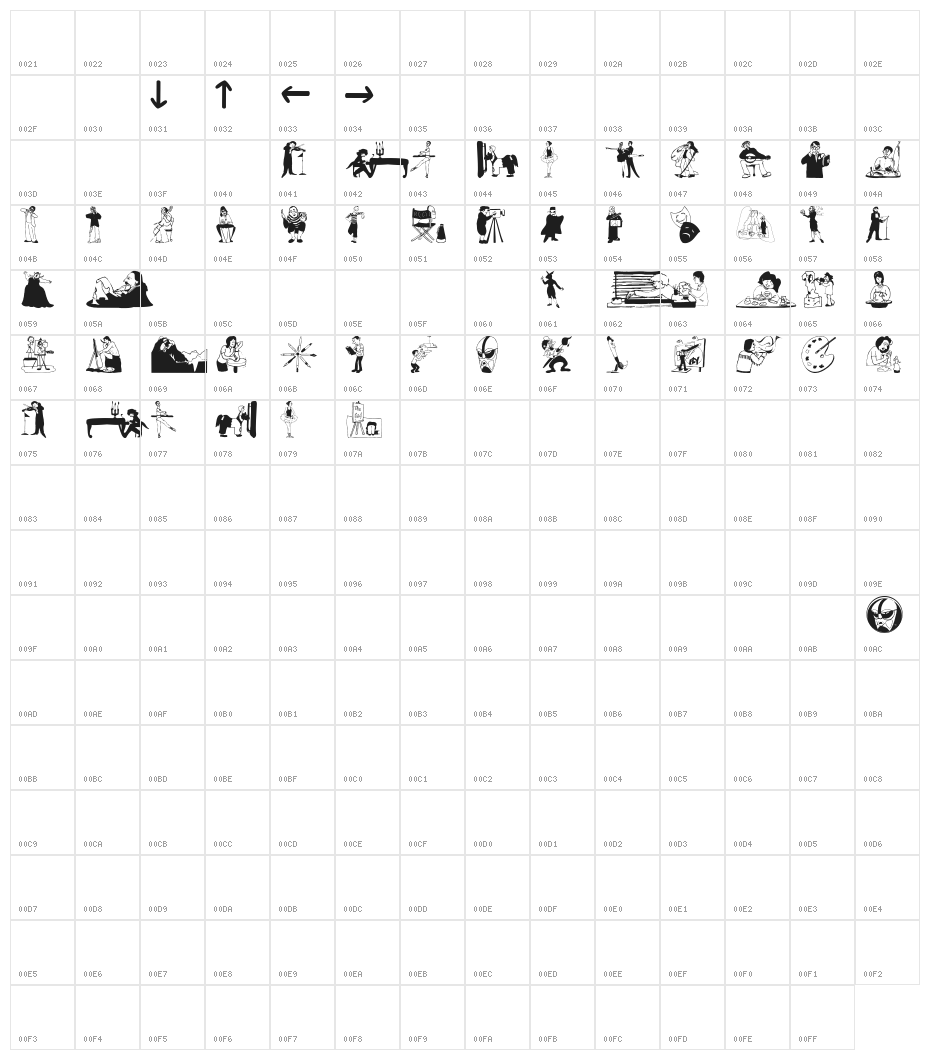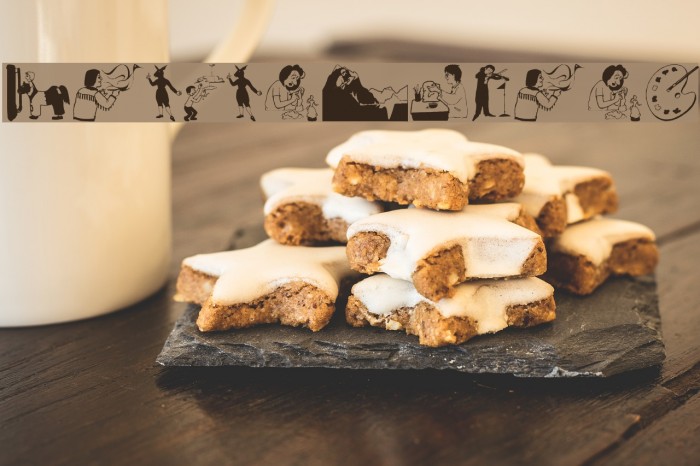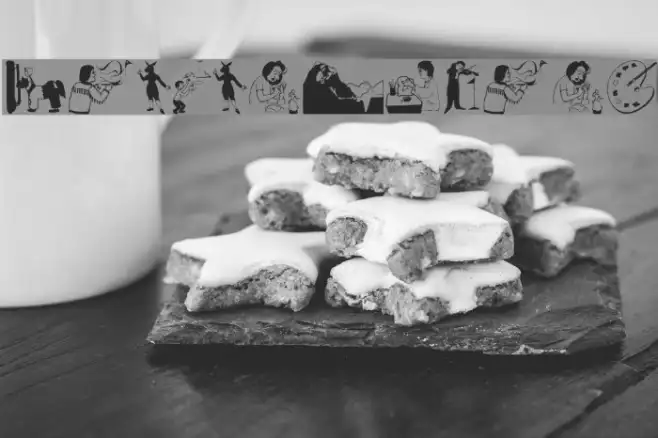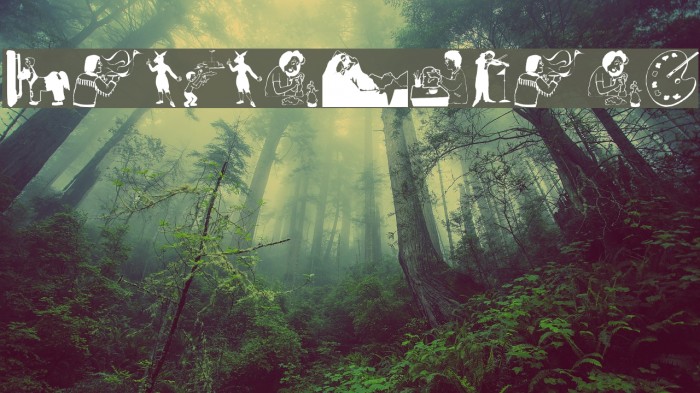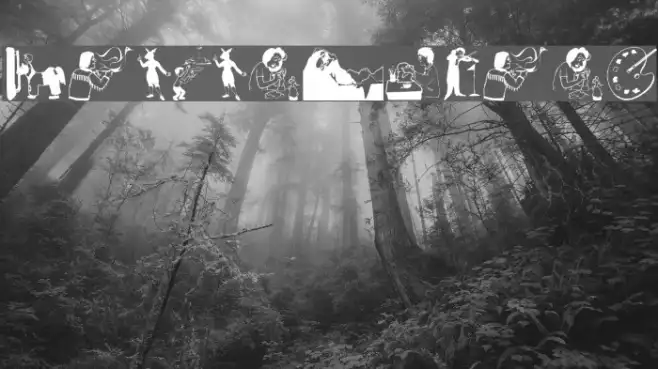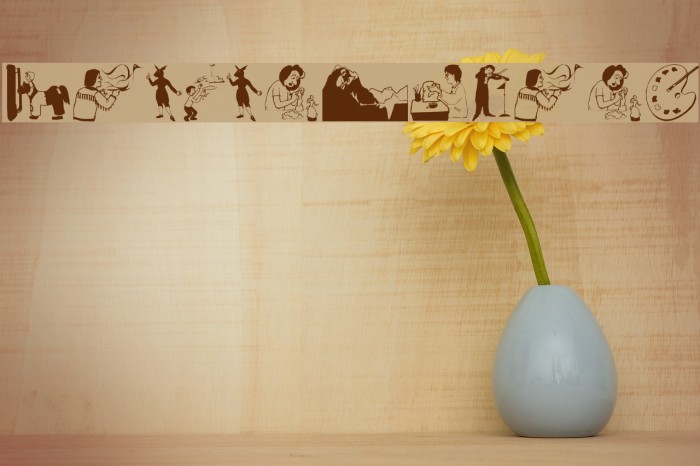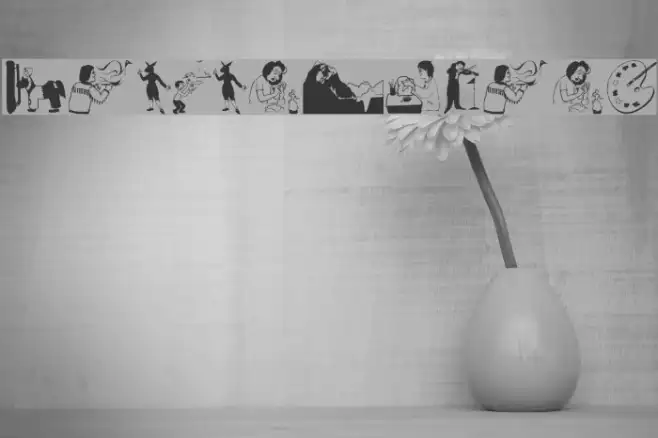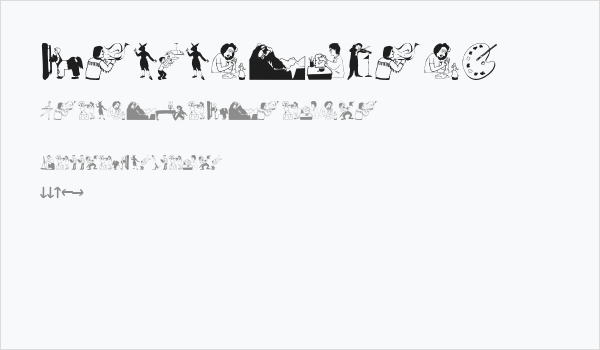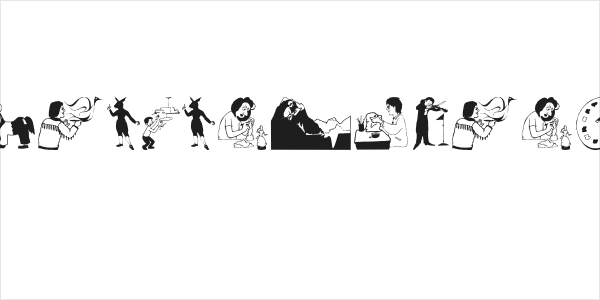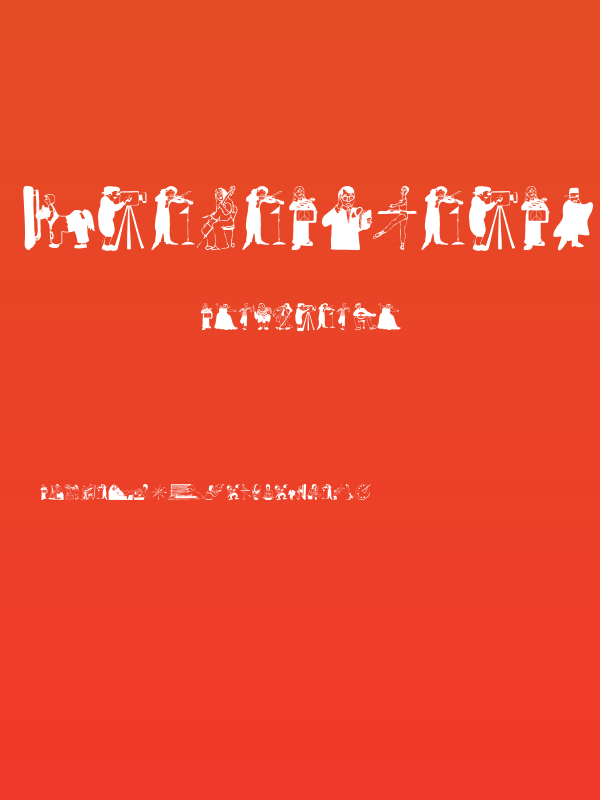
DramaticArts Font
DramaticArts Description
A decorative font composed of detailed illustrations depicting various dramatic arts and creative activities, with each character represented by a unique scene or figure related to performance, art, or theater. The symbols are playful and highly illustrative, prioritizing visual storytelling over traditional letterforms.
Overall StyleDecorative, Playful, Artistic
Use CaseHeadlines, Posters, Themed graphics, Educational materials
Proposed ProjectsPosters for theater productions, art festival materials, educational resources about the arts, creative event invitations.